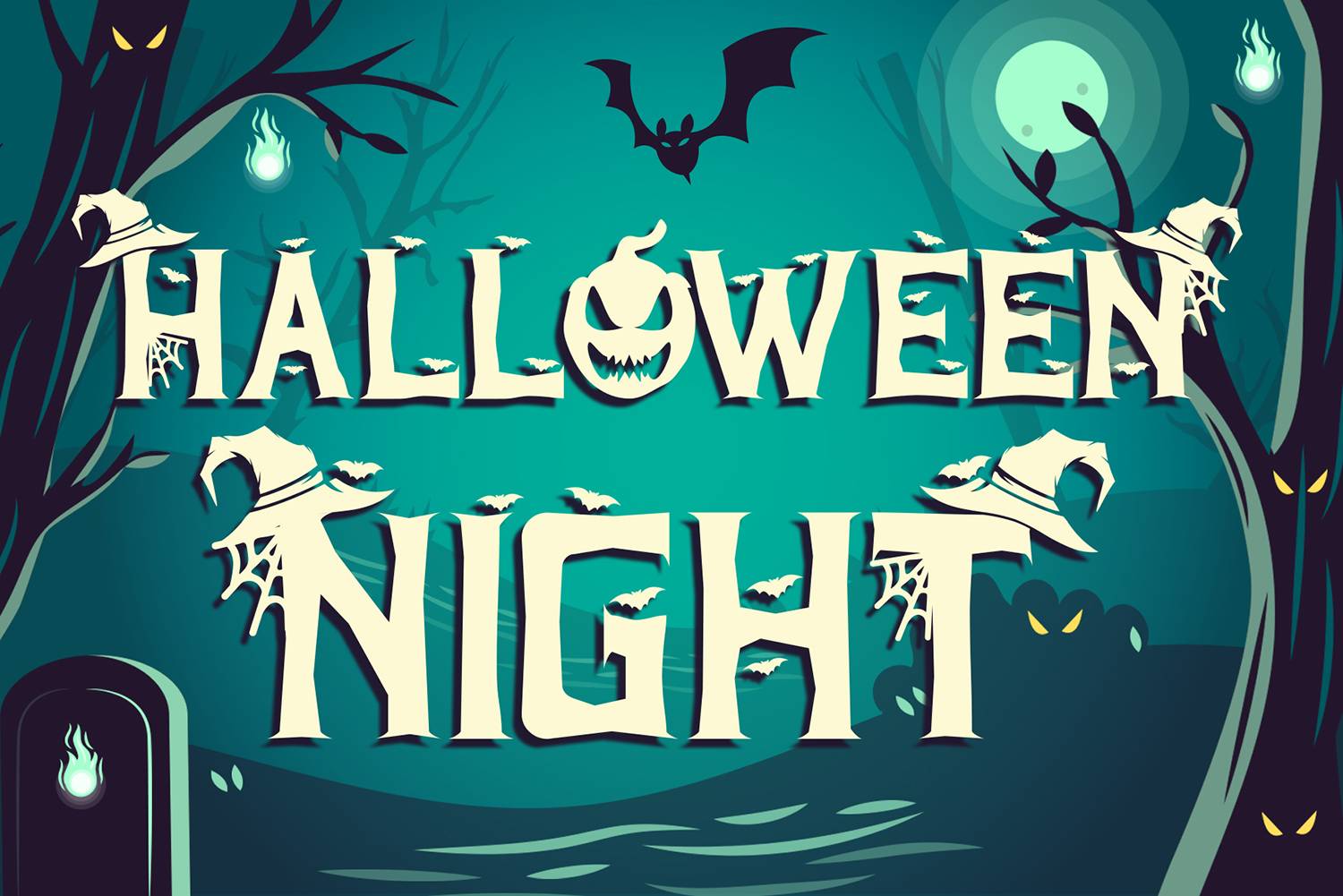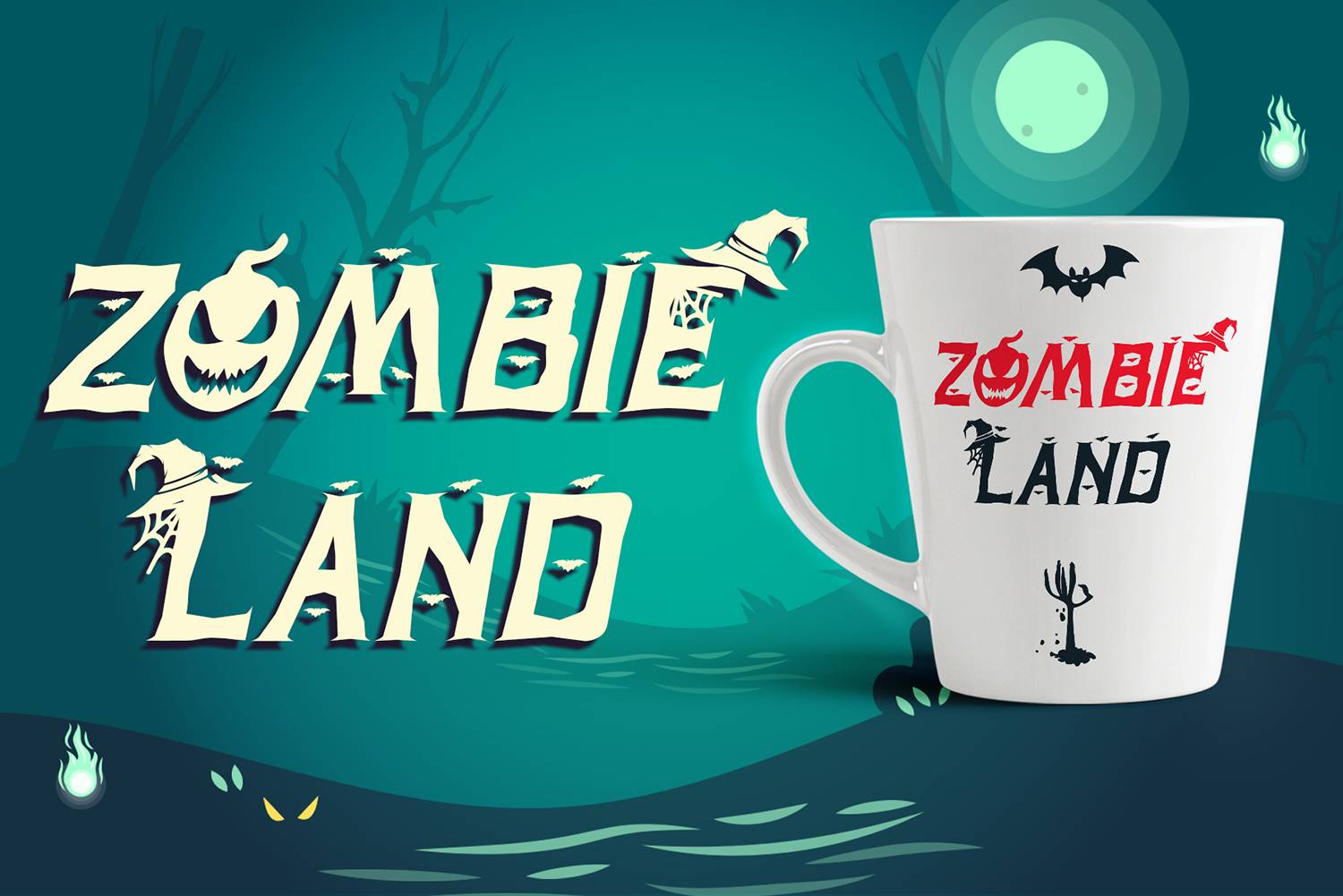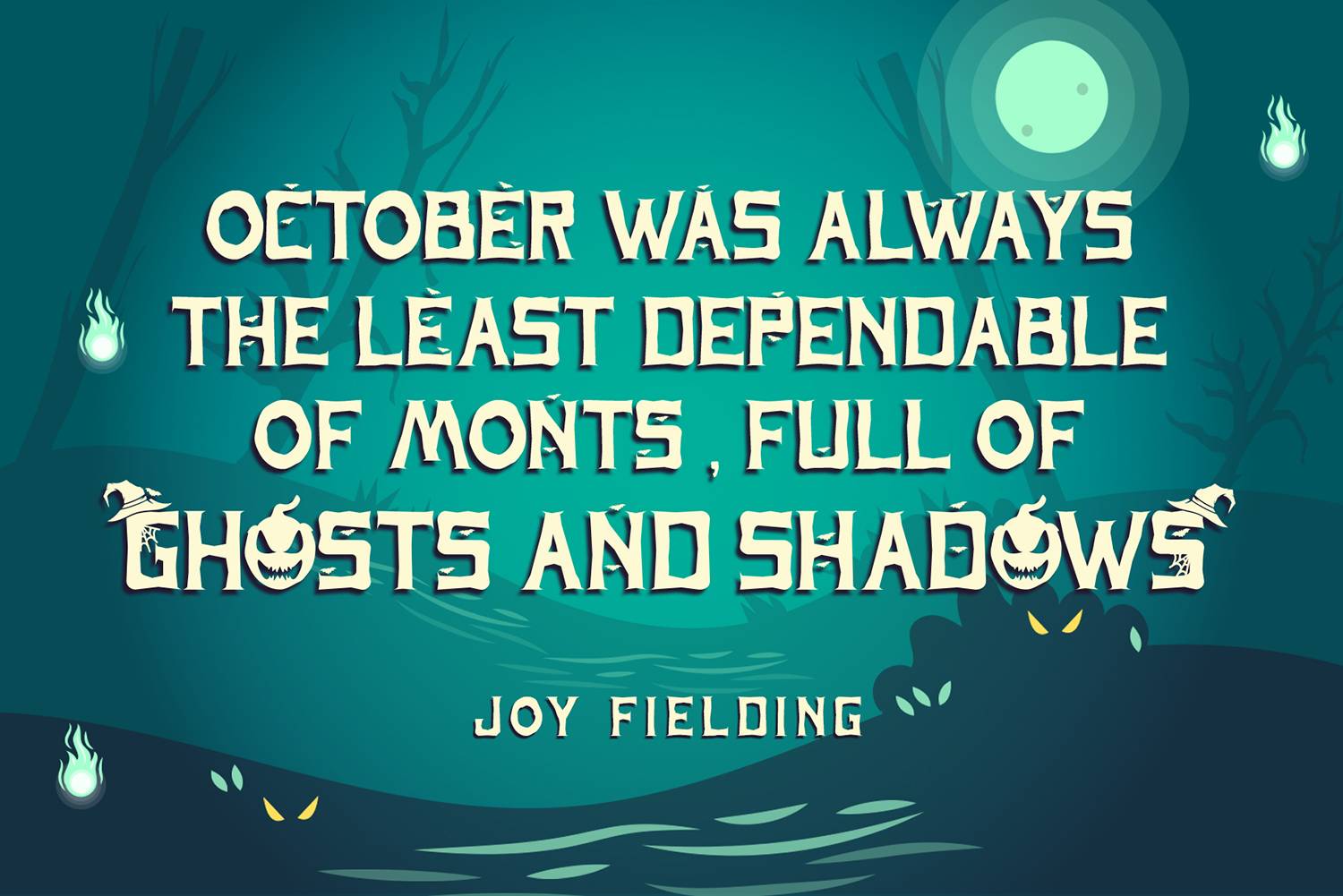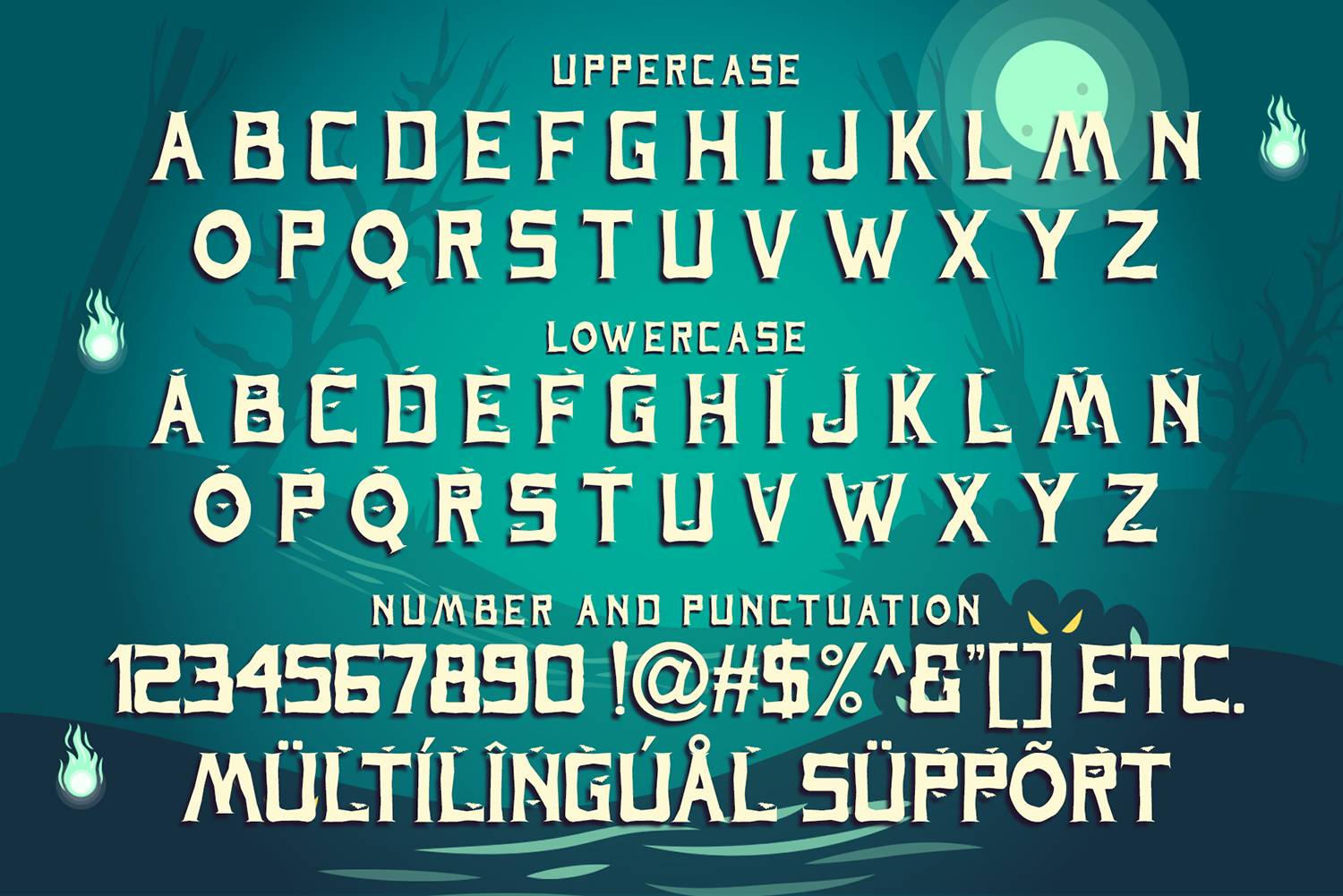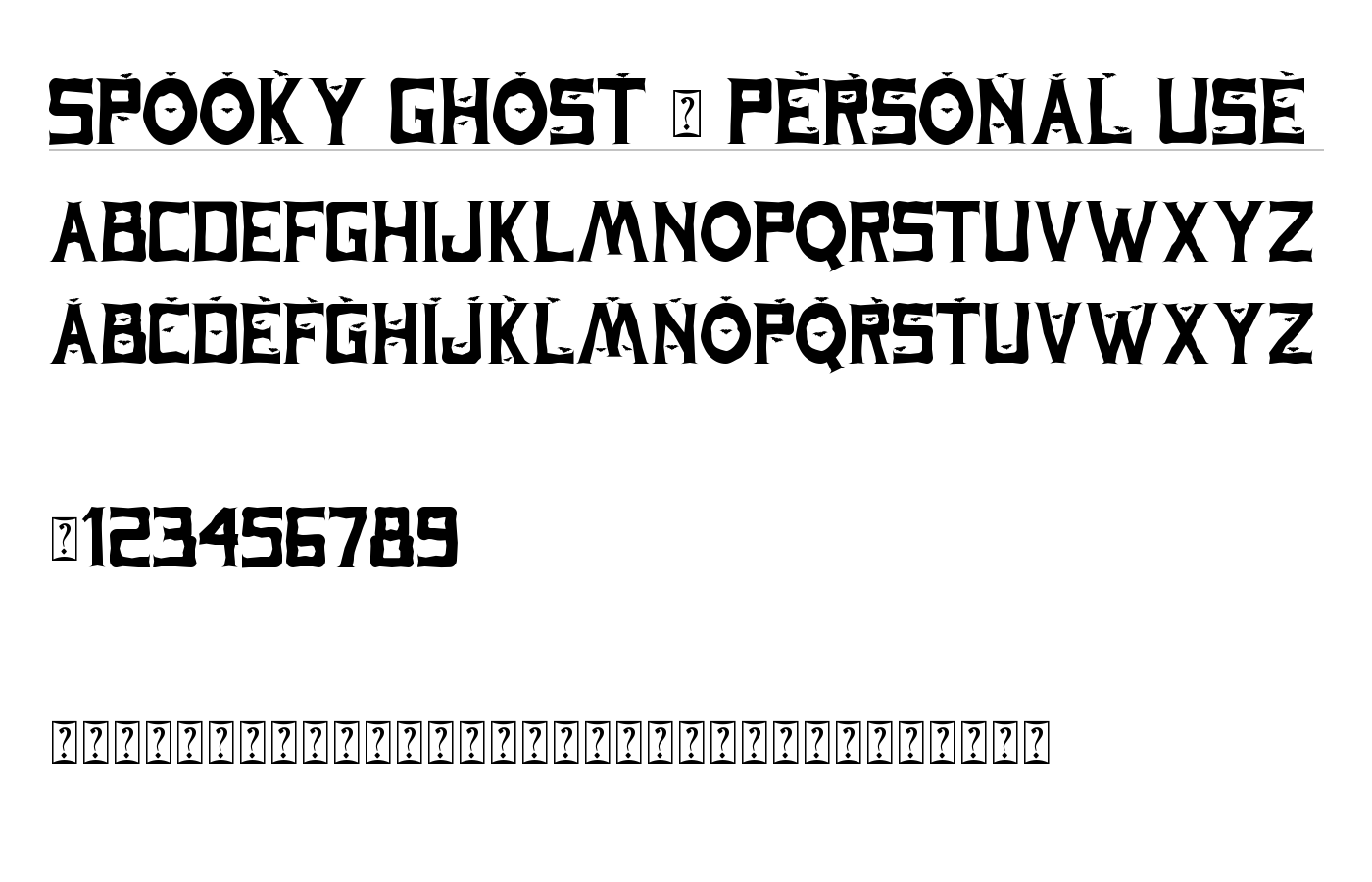
Spooky Ghost Font is a bold, decorative sans serif typeface with a playful, eerie vibe perfect for Halloween-themed designs. Its tall, slightly irregular letterforms and jagged edges give it a hand-crafted, ghostly feel that adds character and fun to posters, party invitations, and seasonal branding. This font works best in headlines or display uses where its unique style can capture attention and set a spooky mood.
Spooky Ghost Font
About Spooky Ghost Font
| Font family | Spooky Ghost Font |